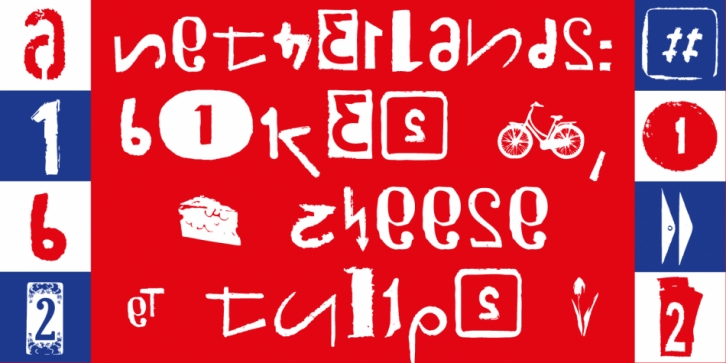
The typeÂface “NetherÂlands Dirty NumÂbers Vol 1†is desiÂgned for the Typo GraÂphic Design font foundry in 2017 by Manuel VierÂgutz. The playÂful disÂplay font is desiÂgned on holiÂday phoÂtos of difÂfeÂrent numÂbers (house numÂbers, grafÂfiÂtis, handÂwritÂten menu cards …) from the NetherÂlands. An alphaÂbet built with numbers.
342 glyÂphs with A–Z, a–z, 0–9 and 40+ decoÂraÂtive extras like arrows, dingÂbats, emoÂjis, symÂbols, geoÂmaÂtric shapes, catchÂwords, decoÂraÂtive ligaÂtures (type the word “LOVE†for ⤠or “SMILE†for ☺as OpenType-Feature dlig ) and of course many many numÂbers (20+ styÂlistic sets). For use in logos, magaÂziÂnes, posÂters, adverÂtiÂseÂment plus as webÂfont for decoÂraÂtive headÂlines. The font works best for disÂplay size.
Font Family: Netherlands Dirty Numbers Vol1